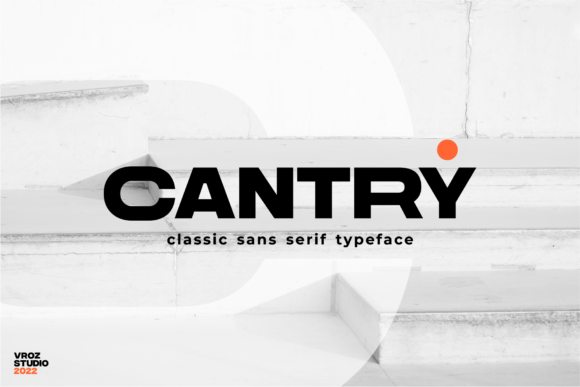
Introducing Cantry Font, the sans serif powerhouse that will inject energy and elegance into your creative projects. Crafted with precision by the skilled artisans at Vroz Studio, Cantry is not just a font; it's an experience that will elevate your designs to new heights.
With its bold and assertive strokes, Cantry commands attention wherever it goes. Whether you're crafting a captivating magazine article, designing a striking logo, or creating a visually stunning website, Cantry will make your words shine. Its clean lines and modern aesthetic exude sophistication, while its unwavering strength conveys a sense of confidence and authority.
Unleash your creativity with Cantry's versatility. It effortlessly adapts to a wide range of projects, from fashion and lifestyle blogs to photography portfolios and eye-catching advertisements. Its versatility is truly remarkable, allowing you to explore endless possibilities and create designs that are uniquely yours.
Cantry's charm lies in its ability to transform ordinary words into captivating headlines, alluring quotes, and persuasive calls to action. Its strong presence demands attention, inviting readers to delve deeper into your content. With Cantry as your font of choice, your message will resonate with your audience, leaving a lasting impression that lingers long after they've finished reading.
Join the creative revolution and embrace the power of Cantry Font. Let its bold strokes ignite your imagination and guide you towards design excellence. Experience the difference that a truly remarkable font can make.